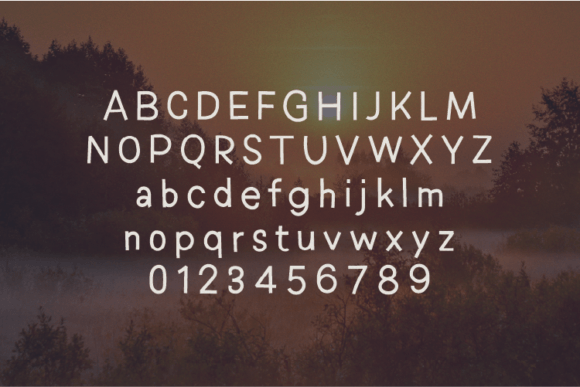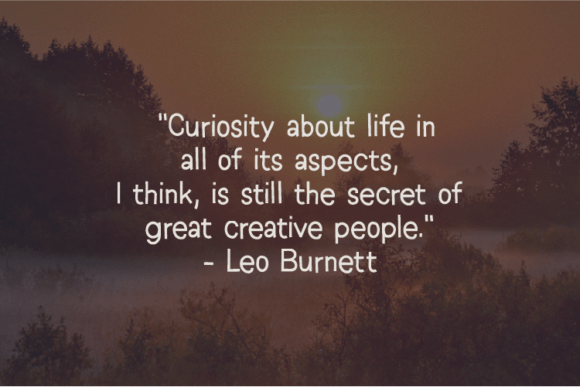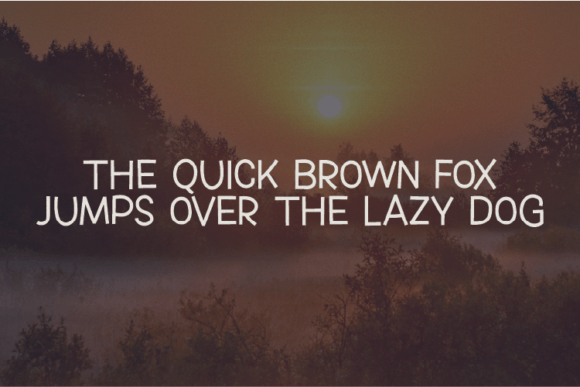
Introduction to Scratchable Font
Scratchable is an interesting and unique sans serif font perfect for quotes, notes, T-shirts, and many more.
Add it to your font collection, and it will make your creative projects outstanding .
Key Features of Scratchable Font
Why Choose Scratchable Font?
Scratchable Font offers exceptional quality and versatility, making it a valuable addition to your design toolkit. Whether you’re creating for personal projects or commercial use, Scratchable Font delivers professional results.